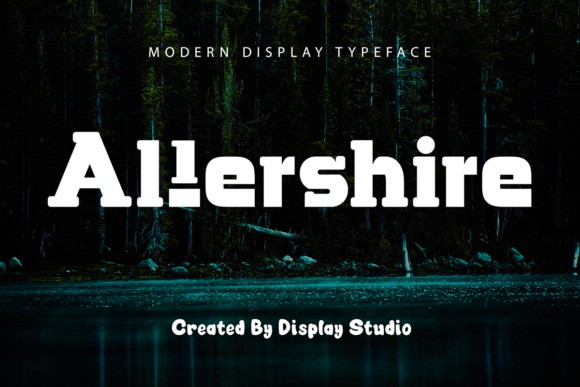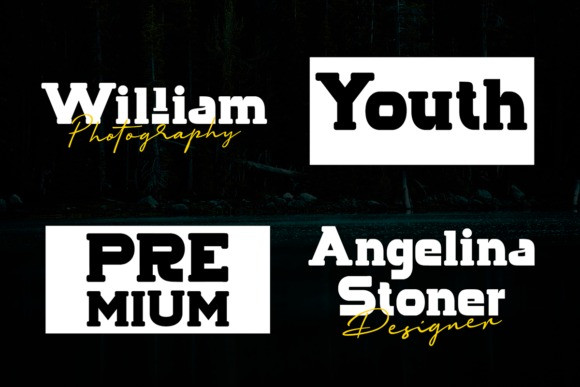
Allershire Font
Allershire is a modern and stylish serif font. This typeset is perfect for brand logos, invitations, greeting cards, or even any kind of project. With multilingual features and style variations, this typeface would further enhance the aesthetical aspect of your work.